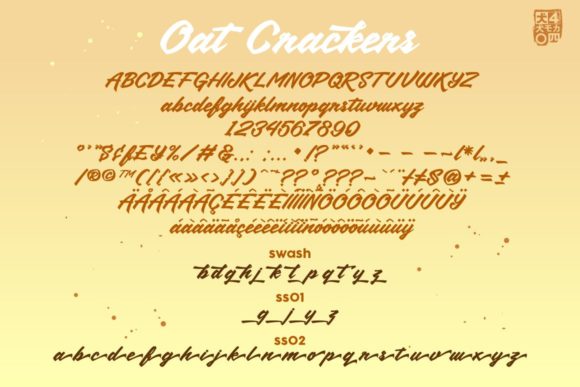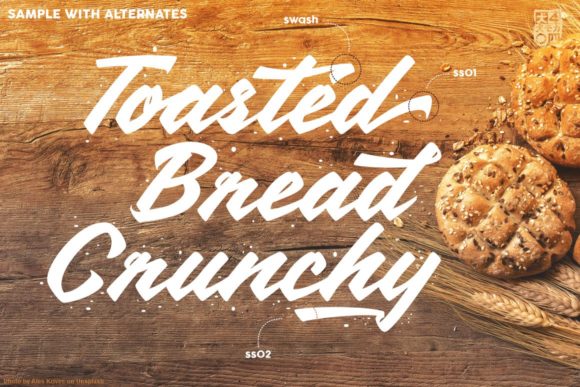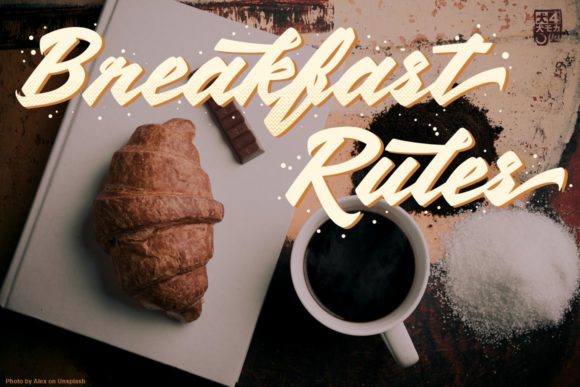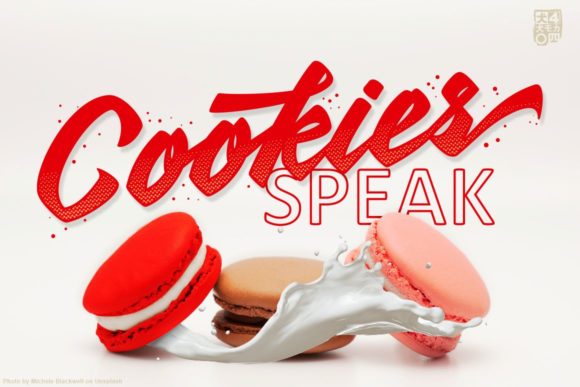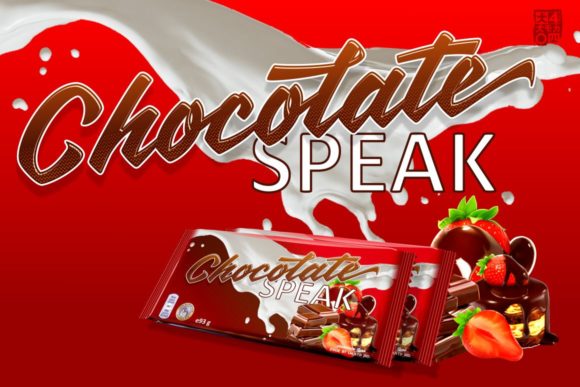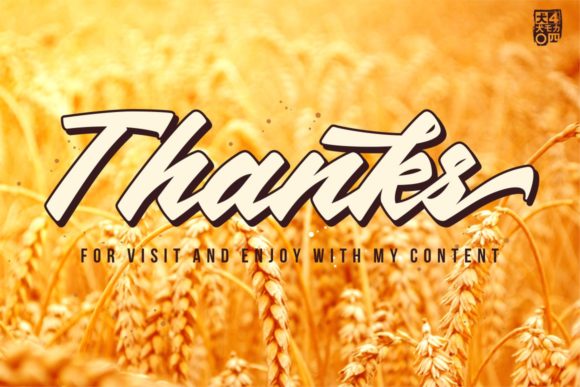
Introduction to Oat Crackers Font Font
Fonts play a crucial role in design, and the Oat Crackers Font font is a typeface that brings both character and versatility to any project. Whether you’re working on a branding project, a website, or a print design, the Oat Crackers Font font offers a unique style that can elevate your work.
Oat Crackers is an adorable quirky handwritten font.
It will add an incredibly joyful touch to your designs Fall in love with its playful style and use it to create beautiful stationary art, eye-catching social media posts, and much more.
Key Features of Oat Crackers Font Font
Why Choose Oat Crackers Font Font?
The Oat Crackers Font font is more than just a typeface – it’s a design tool that helps you communicate your message with style and clarity. Its unique character set and versatile design make it suitable for a wide range of applications, from elegant invitations to bold headlines.
With its carefully crafted letterforms and balanced proportions, the Oat Crackers Font font ensures readability and visual appeal across all mediums.
What makes Oat Crackers Font font special?
The Oat Crackers Font font stands out with its unique design, exceptional readability, and versatility across various design applications.